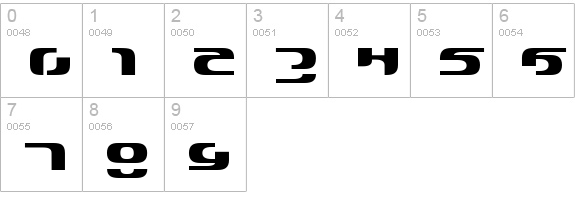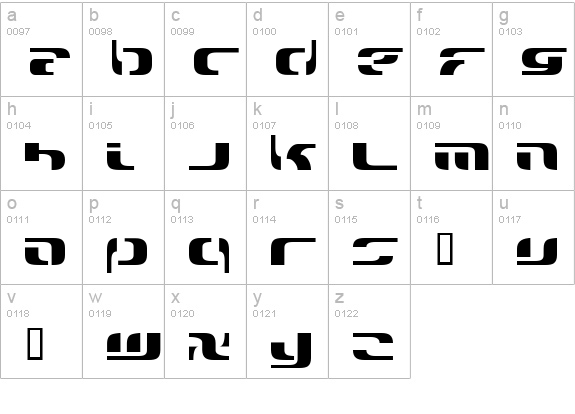
solar2000 Font Details
Solar2000 is a vibrant and futuristic font that exudes a sense of innovation and energy. Its sleek and stylish design makes it perfect for a wide range of projects, from technological websites to modern branding materials. With its bold and sharp lines, Solar2000 captures attention and creates a captivating visual impact. One of the best aspects of Solar2000 is that it is available for free. Yes, you heard it right! This incredible font is freely accessible to everyone who wants to add a touch of modernity to their designs. Whether you are a professional designer or a hobbyist, Solar2000 offers you the opportunity to elevate your projects without any cost. To get your hands on this amazing font, simply visit FontsMarket.com. There, you can easily download Solar2000 and start using it in your designs right away. The hassle-free availability of this font ensures that you can incorporate it into your work without any limitations or constraints. So, why wait? Embrace the contemporary and dynamic feel of Solar2000 and take your designs to the next level. Download this free font today and let your creativity soar!